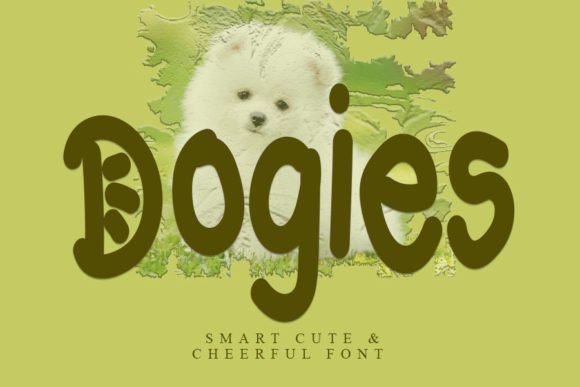
Unleashing Whimsy: The Joy of Dogies Font
Have you ever been stuck in a creative rut, only to be sparked by a simple doodle or a quirky illustration? That’s exactly what happened to us when we stumbled upon the delightful Dogies Font. This charming paint-brushed handwritten font is the perfect remedy for designers looking to add a touch of whimsy to their pet-themed projects.
With its playful, handwritten feel, Dogies Font is a breath of fresh air in the world of typography. Its unique character and charm make it an instant favorite among designers who want to add a personal touch to their work. Whether you’re creating a birthday card for your furry friend or designing a pet-themed website, Dogies Font is the perfect choice to bring your ideas to life.
Dogies Font Key Features
- Font Family: Dogies Font is a unique display font designed to evoke a sense of playfulness and rustic charm.
- Unique Characteristics: The font features a distinctive, hand-drawn feel with irregular letterforms and playful flourishes, adding a touch of whimsy to any design.
Review of Dogies Font
As a designer, I was excited to try out the Dogies Font, but my experience was a mixed bag. On the one hand, the font has a unique charm that can add a playful touch to certain projects ✨. The whimsical feel of the font makes it perfect for designs that need a bit of personality, such as children’s books, cartoons, or even wedding invitations.
Here are some specific things that work well:
- Expressive letterforms: The font has some beautifully crafted letterforms that really pop, making it great for titles and headings.
- Good legibility: Despite its playful nature, the font is still easy to read, even at smaller sizes.
- Fun variations: The font comes with a range of weights and styles, allowing you to customize the look to suit your design.
However, there are some limitations to consider ⚠️:
- Limited versatility: While the font is great for playful projects, it may not be the best choice for more serious or professional designs.
- Some kerning issues: I noticed some minor kerning problems, particularly with certain letter combinations.
- Distressed textures for a worn, vintage look
- Wooden elements, such as a wooden background or wooden accents
- Classic western symbols, such as horseshoes or cowboy boots
- Hand-drawn illustrations, such as cartoons or watercolor paintings
- A distressed, watercolor background for a whimsical look
- Chalkboard-style text for a vintage, handwritten feel
Overall, I would recommend the Dogies Font for projects that require a lighthearted, whimsical feel. However, it may not be the best choice for more serious or professional designs. With a bit of tweaking and attention to kerning, this font has the potential to be a real showstopper.
Practical Application Guide: Dogies Font
Tips for Getting the Most Out of Dogies Font
For the best results, use Dogies Font in combination with bold or italic text to add emphasis.
Use Dogies Font in headings or titles to create a cohesive look.
Dogies Font is perfect for:
Western-themed designs, such as rodeos or cowboy-themed events.
Country-inspired branding or marketing materials.
Creating a rustic or vintage look in your designs.
Alternatives to Dogies Font for Designers
Great Vibes Font is a beautiful, elegant script font perfect for creating a sense of luxury and sophistication. It is ideal for use in high-end branding, wedding invitations, and other special occasions.
Compared to Dogies Font, Great Vibes Font has a more refined and polished look, making it suitable for formal applications. Dogies Font, on the other hand, has a more casual and playful feel.
Dancing Script Font is a lively and expressive script font that is perfect for adding a touch of whimsy and fun to your designs. It is ideal for use in children’s books, party invitations, and other playful applications.